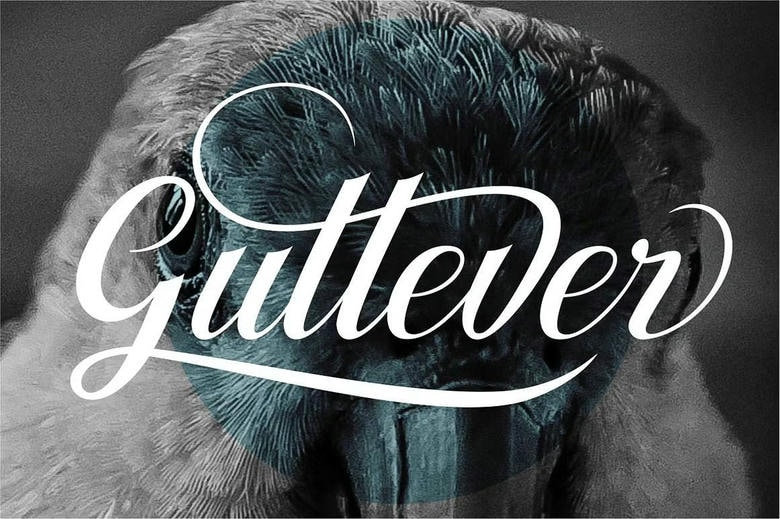
Gullever Font
Gullever is a beautiful font with soft curves and lines that give it an elegant look. It works well for any design project, such as invitation cards, product logos, food brand logos, and more. Gullever also comes with extra characters, including standard ligatures, swashes, and stylistic sets 01 to 05, so you can create your own unique style.
Gullever Calligraphy Script Font